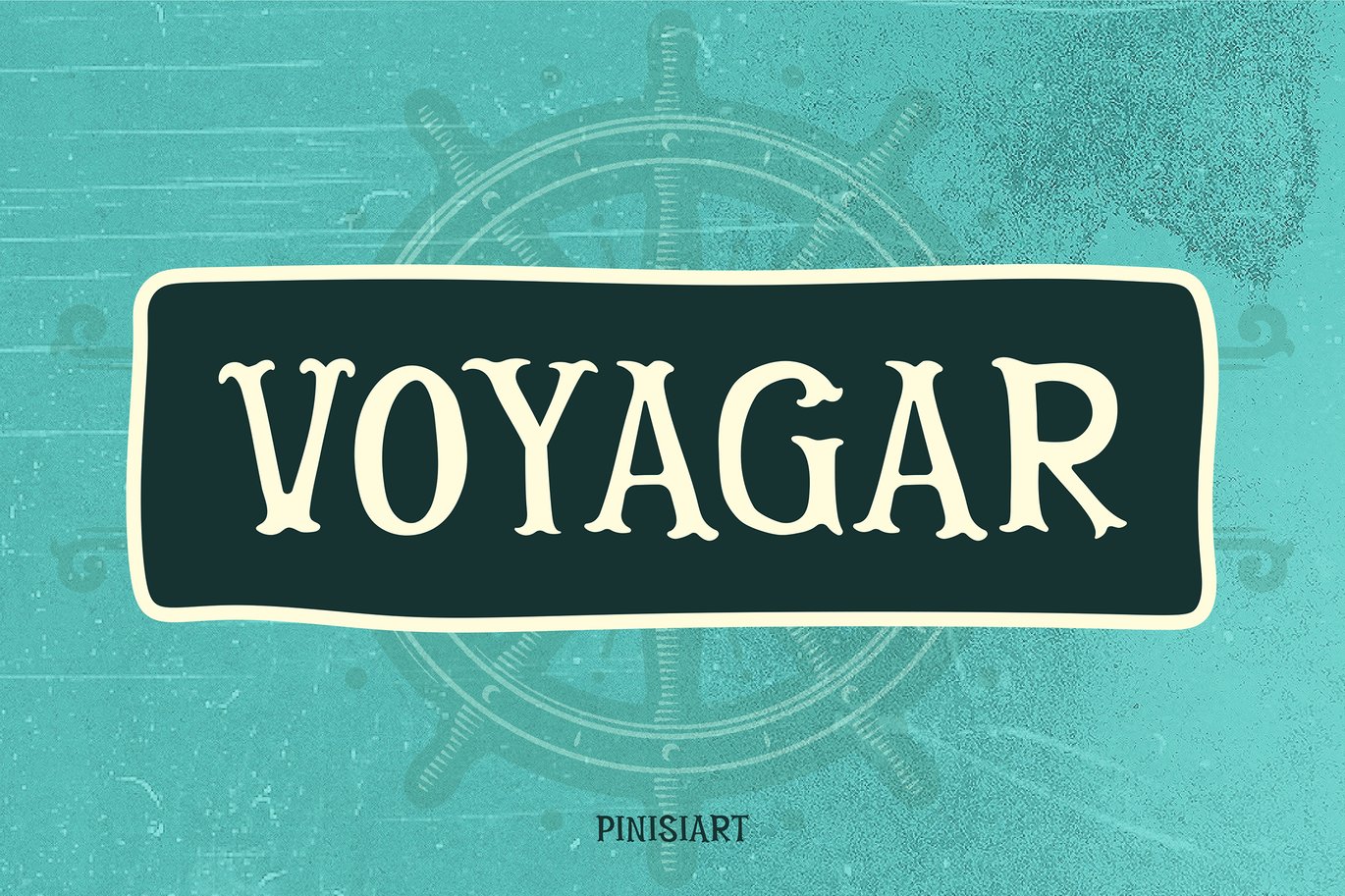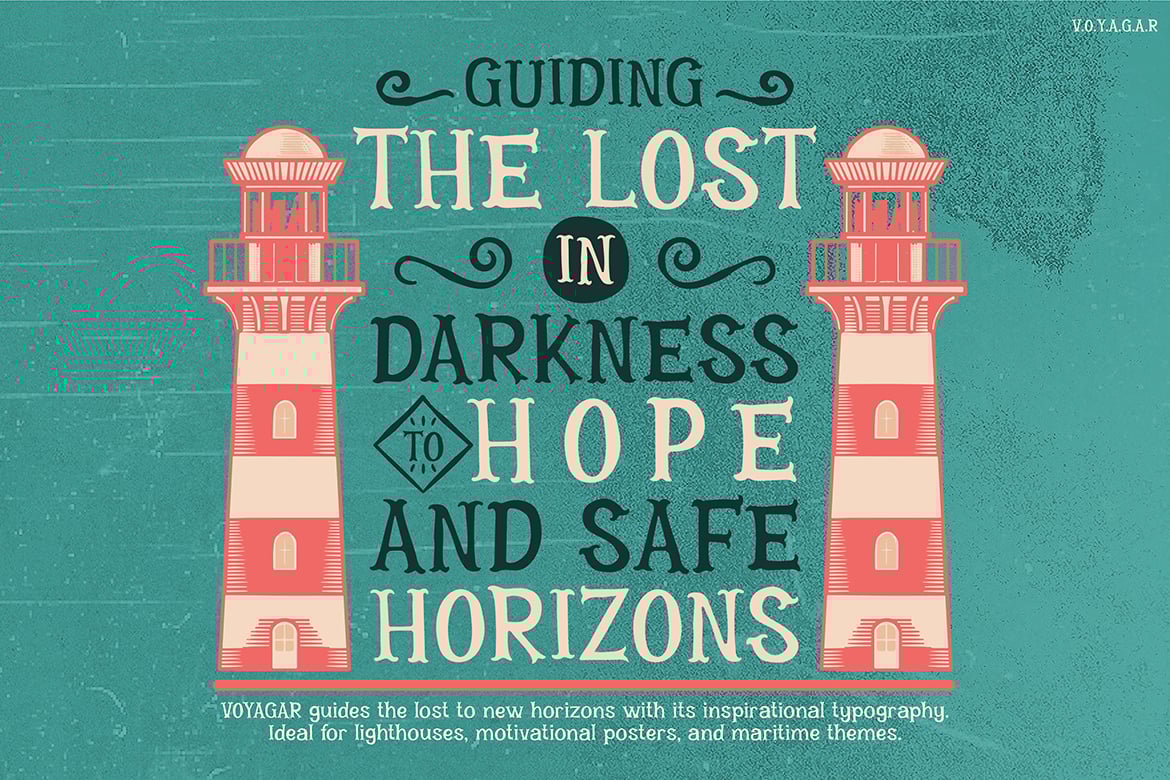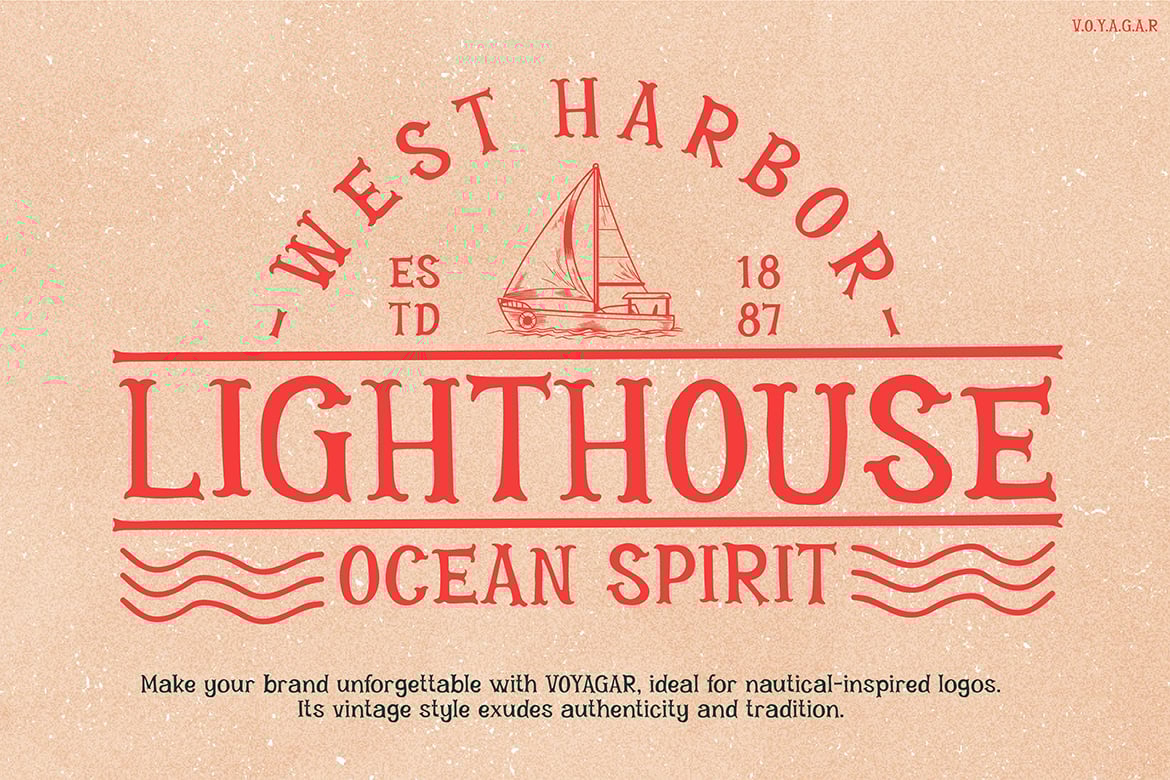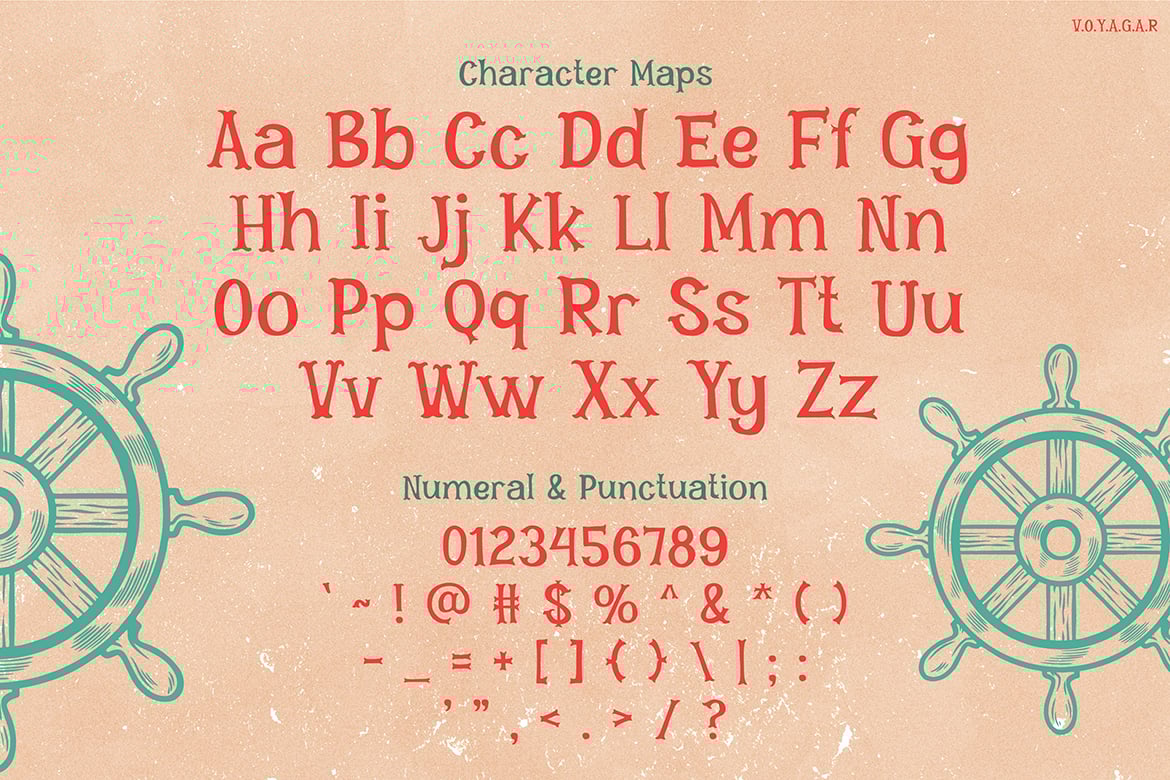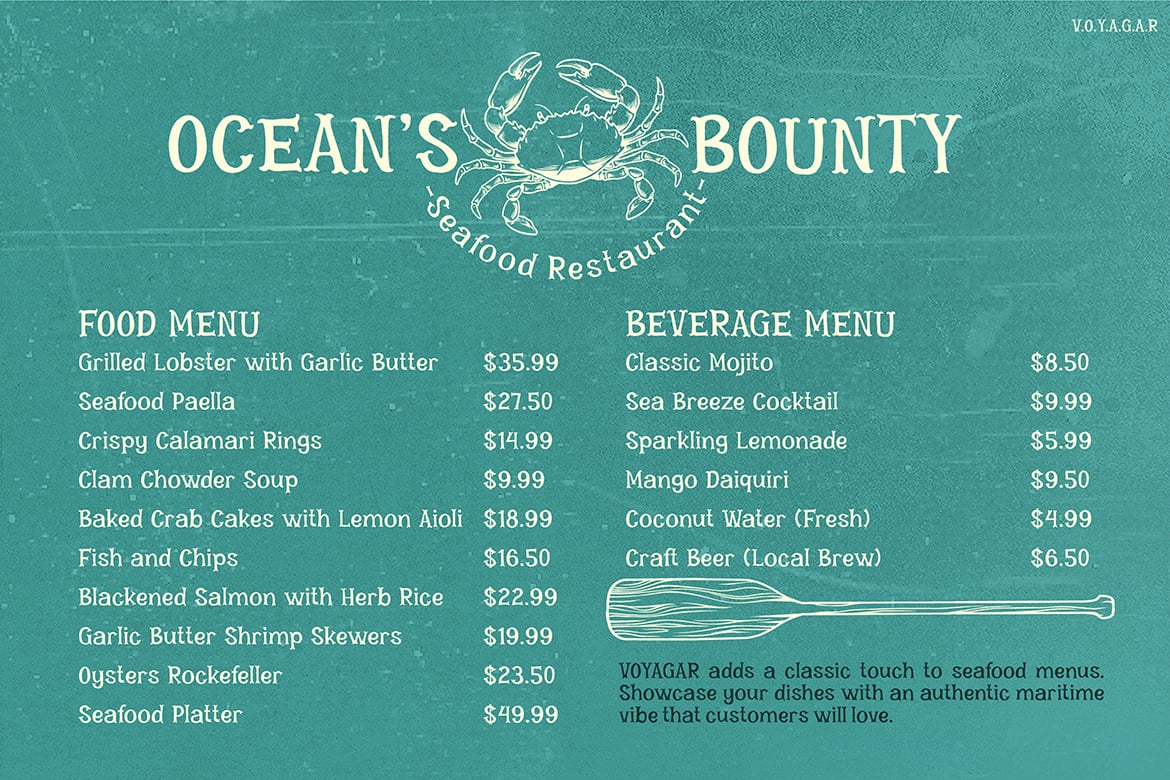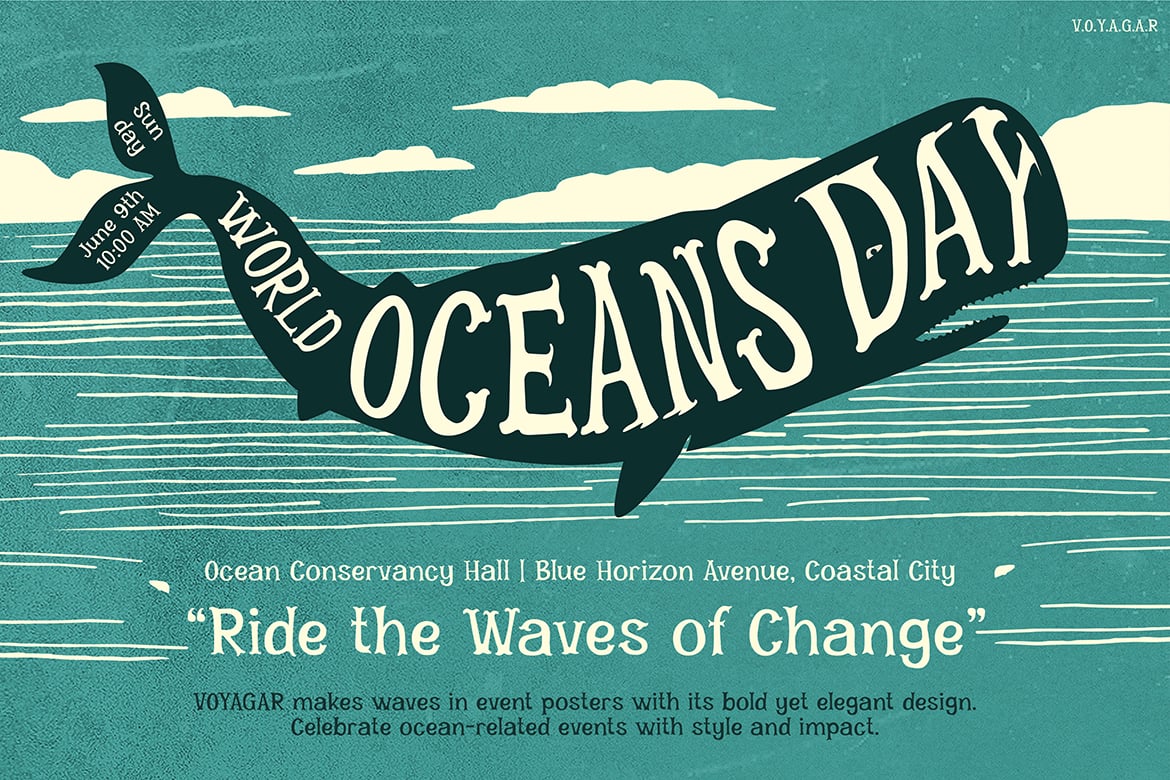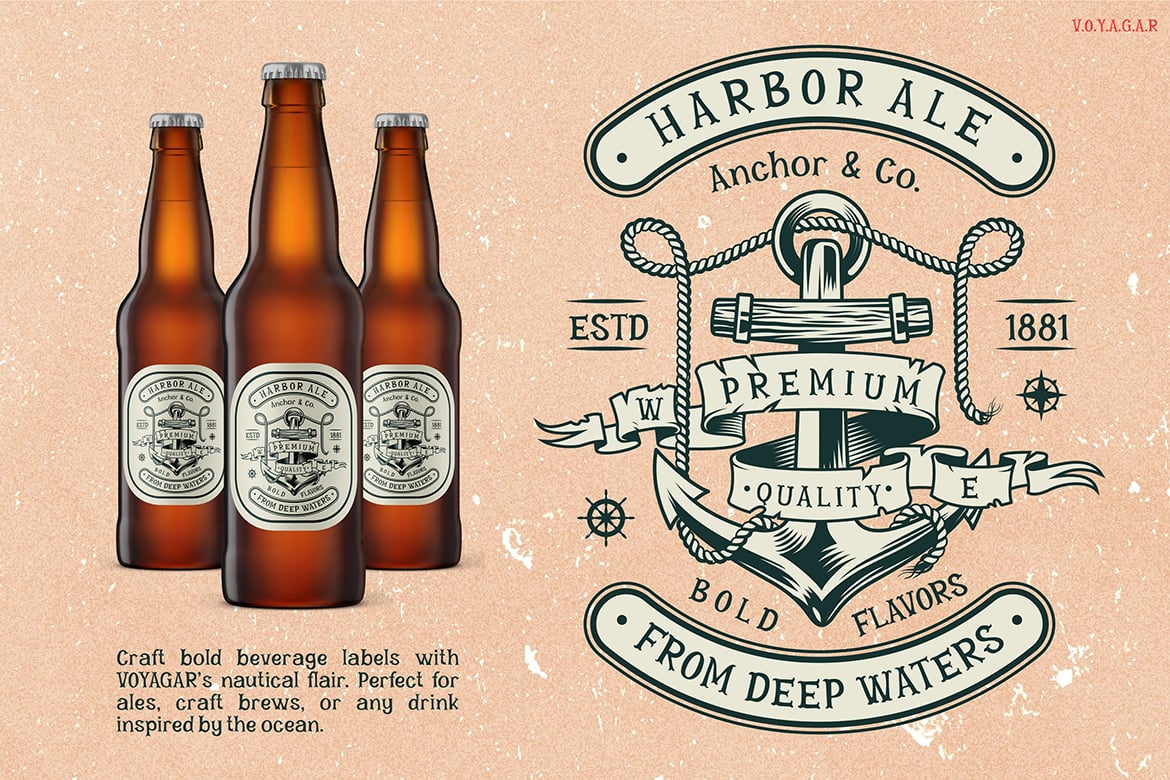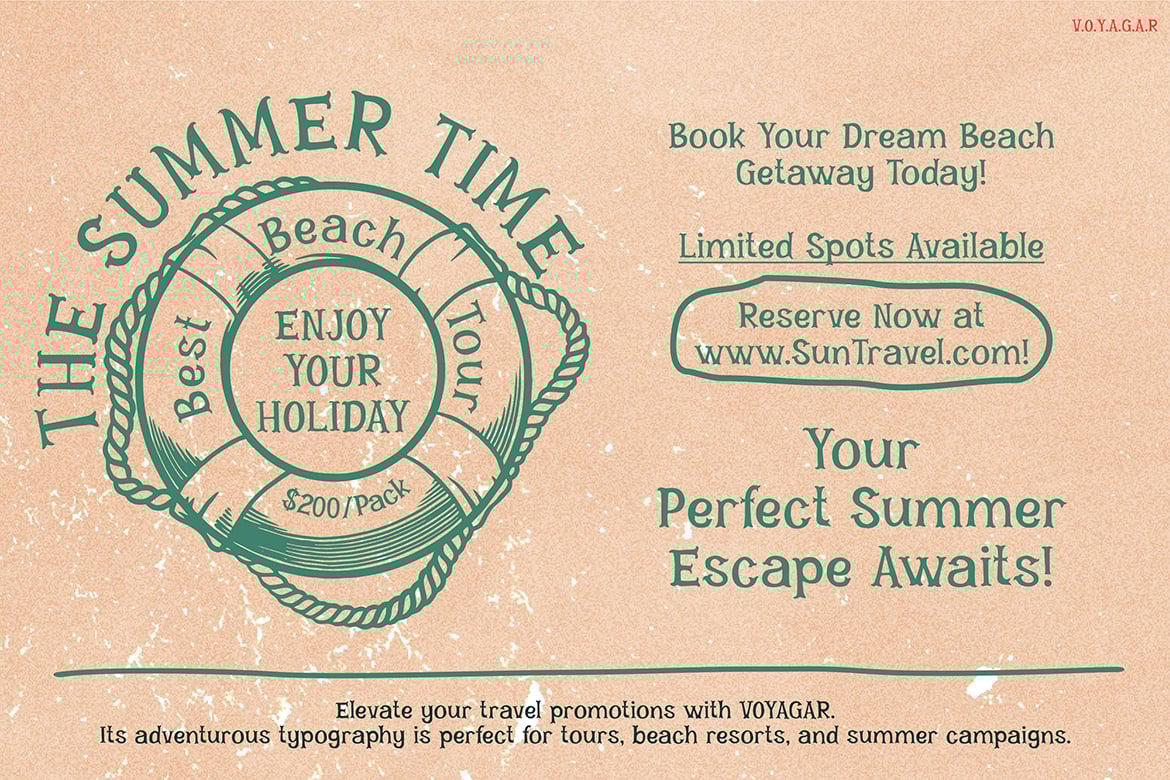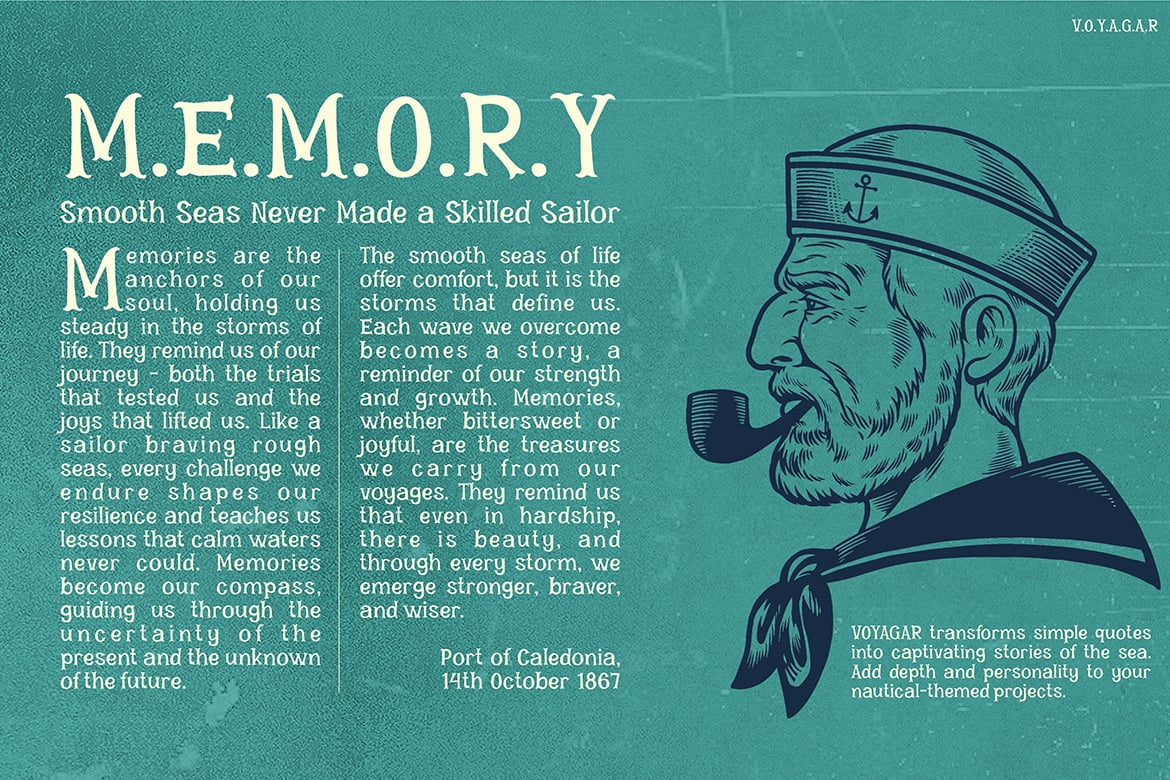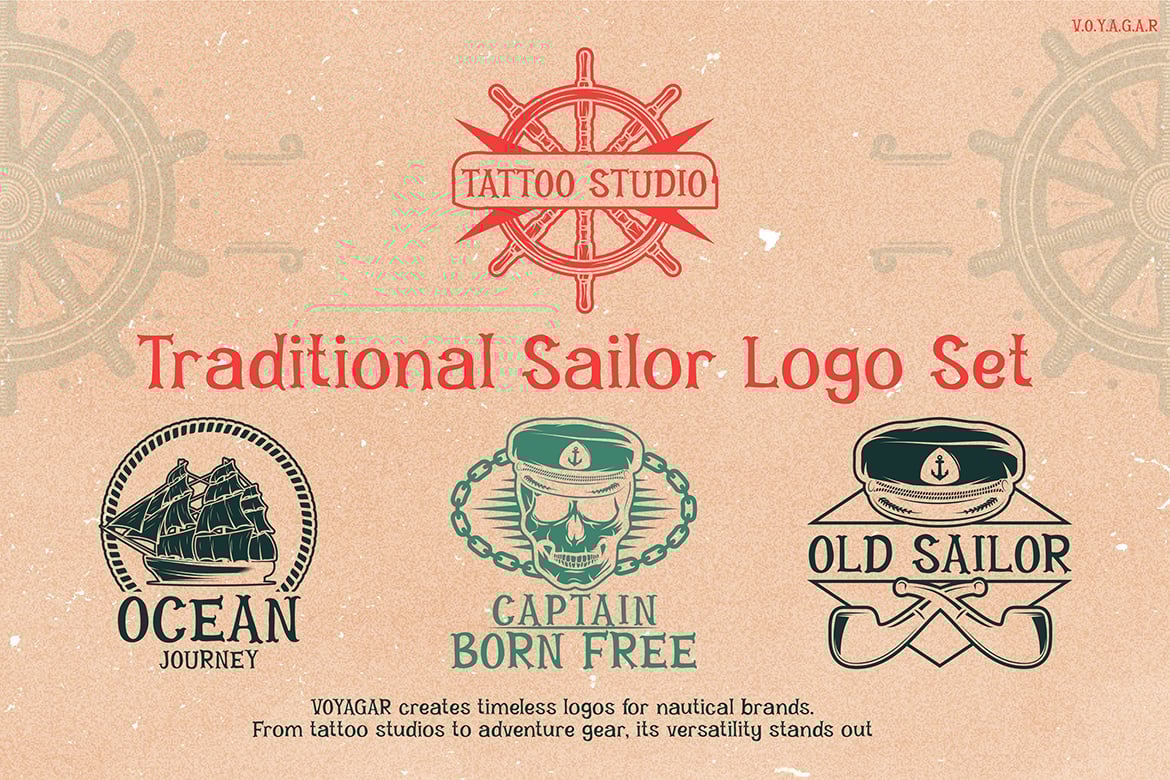
Vintage Maritime Font – Voyagar
VOYAGAR perfectly suits creators who want to add a vintage flair to their designs. Graphic designers working on branding projects for artisanal products, coffee shops, or boutique hotels will find this typeface especially fitting. It works wonderfully on labels, posters, and menus, providing a distinct retro vibe that appeals to audiences who value craftsmanship and nostalgia.
It also evokes a sense of adventure and timeless elegance with its charming and nostalgic design. The font features smooth curves and decorative serifs, blending a vintage aesthetic with modern functionality. Its unique character shapes transport you to a bygone era of handwritten travel logs, maritime expeditions, and retro signage. The natural balance between its bold and whimsical elements makes VOYAGAR an ideal choice for designs that capture both personality and professionalism.
Voyagar Font is a retro sailor-inspired serif font, perfect for designs that evoke nautical adventures and classic tattoo aesthetics. Here’s what it’s suitable for: Art Deco Branding, Vintage Maritime Posters, Traditional Tattoo Designs, Nautical-Themed Invitations, Rustic Wedding Stationery, Retro Travel Brochures, Seaside Cafe Signage, Maritime Product Packaging, Heritage Event Flyers, Old-School Apparel Branding, Sailor-Inspired Menus, Classic Book Covers, Rustic Souvenir Labels, Antique-Themed Logos, and Decorative Typography for Coastal Themes.